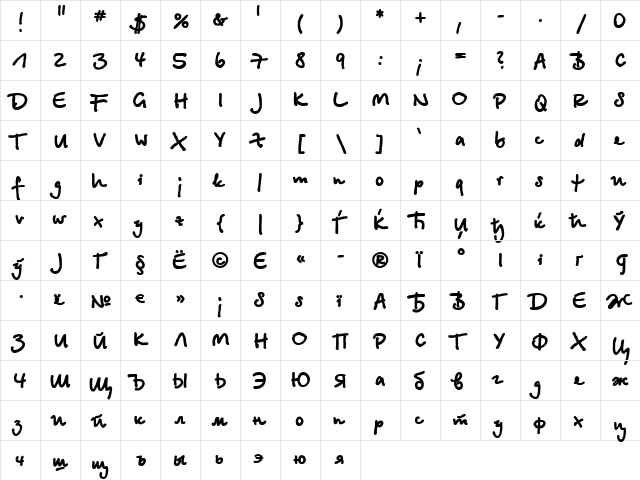
BetinaScriptExtraC Regular
Design Context for BetinaScriptExtraC Typeface
BetinaScriptExtraC flows with the natural rhythm of handwritten lettering, making it ideal for designs that call for warmth and personal expression.
Font Pairing: Combine BetinaScriptExtraC with a simple geometric sans for maximum contrast — the tension between flowing curves and clean structure is a classic typographic pairing.
Pro Tip: Pair BetinaScriptExtraC with a clean sans-serif for supporting text. The contrast between fluid script and geometric structure creates an elegant typographic hierarchy.